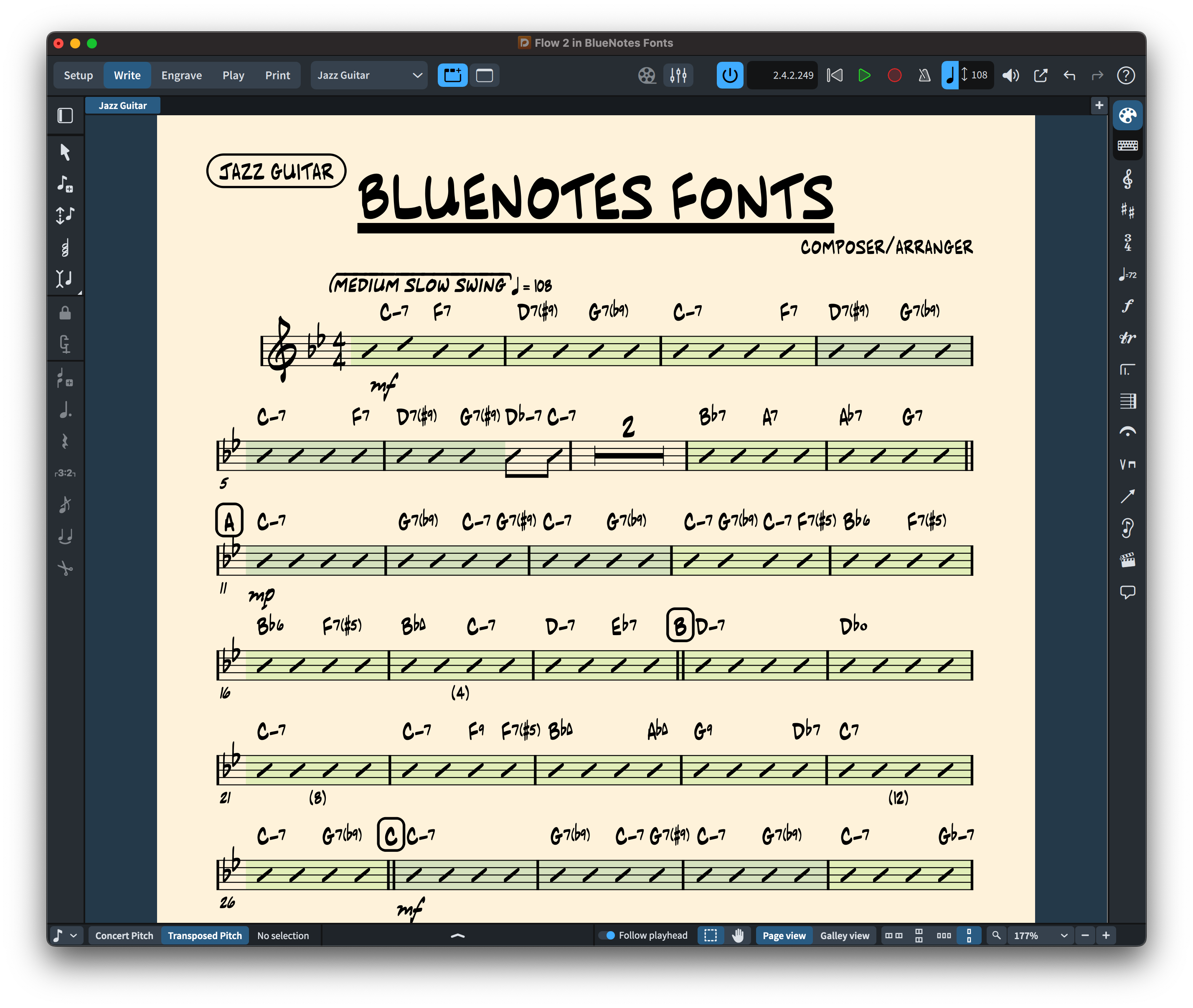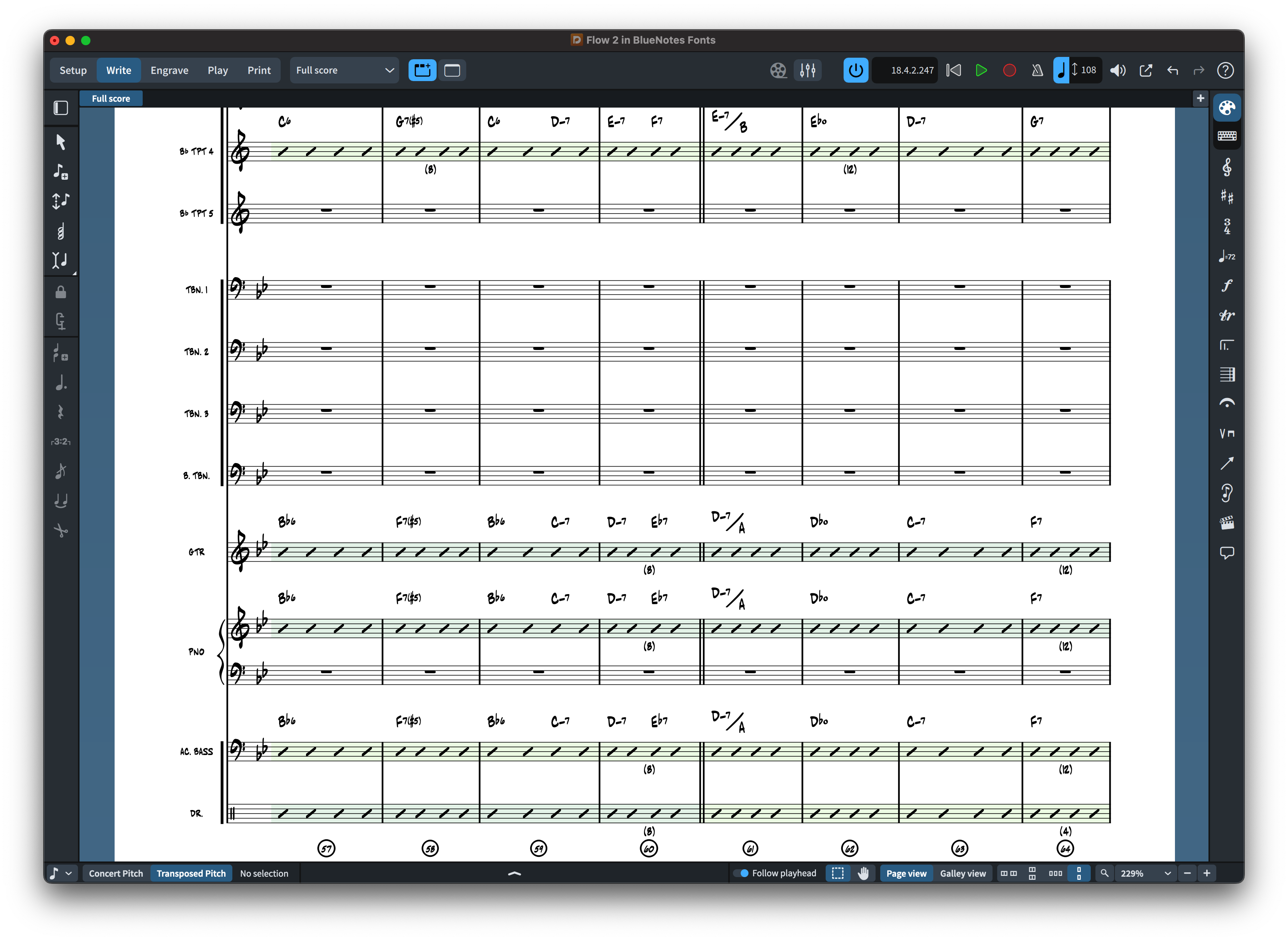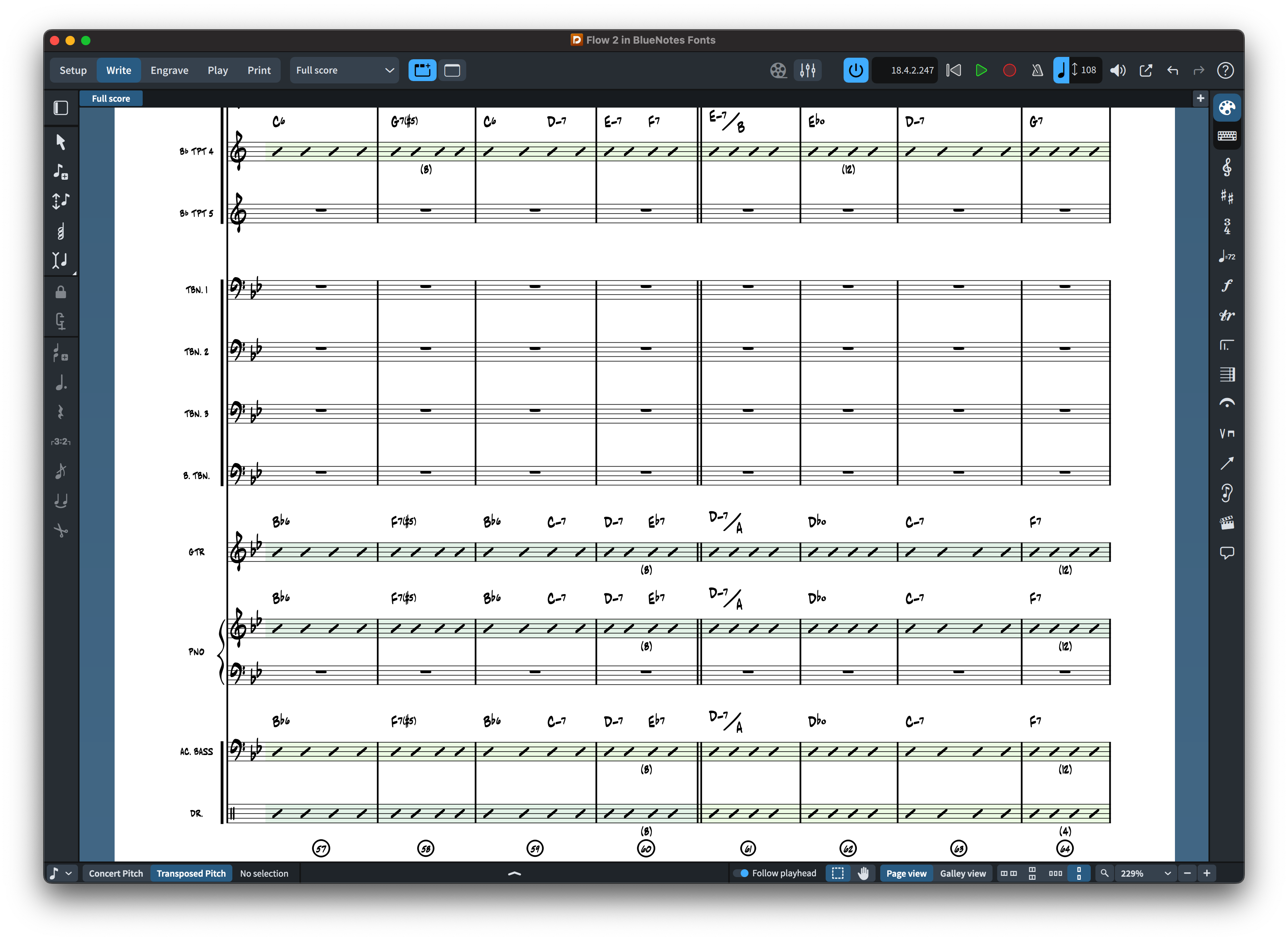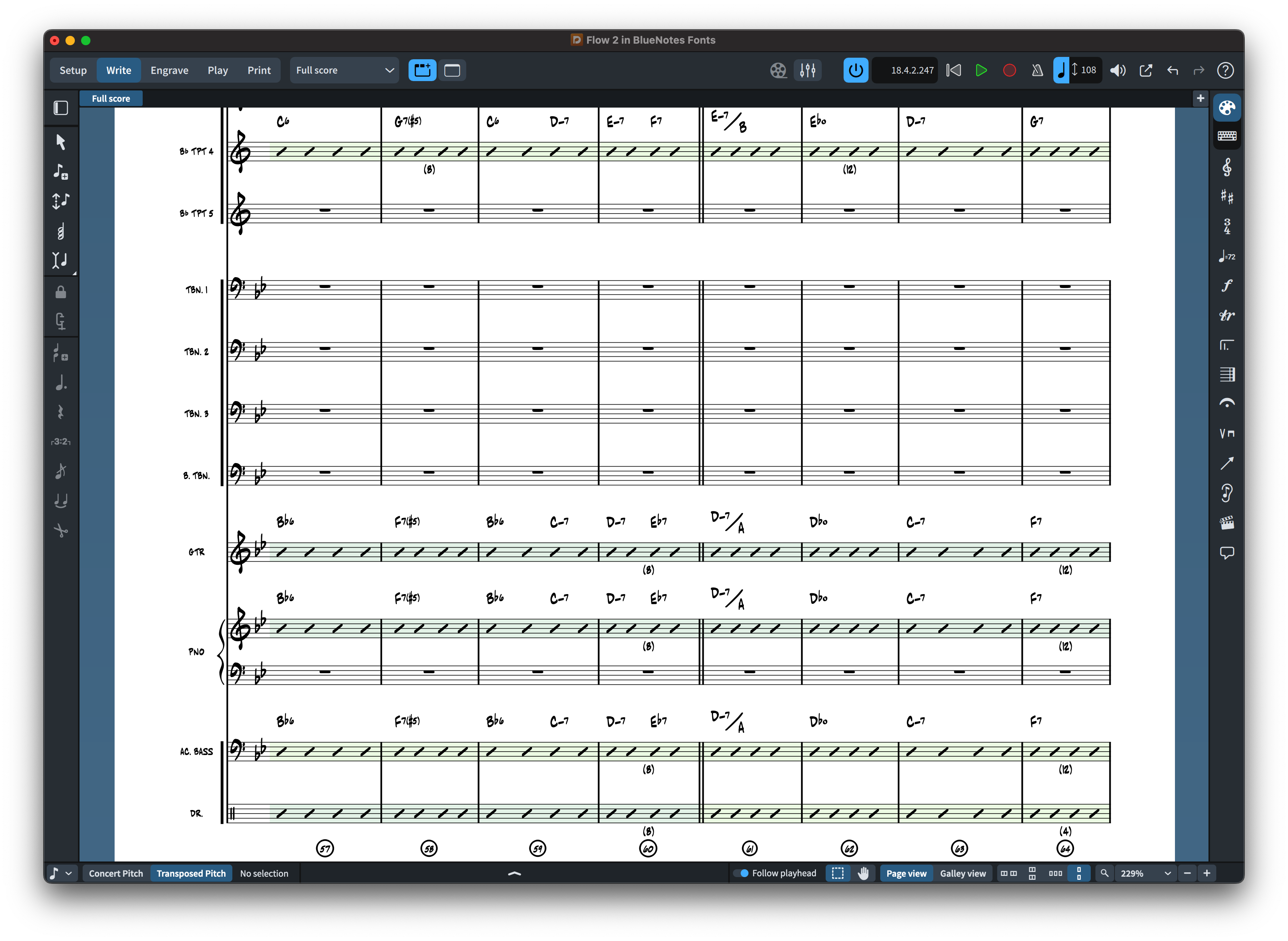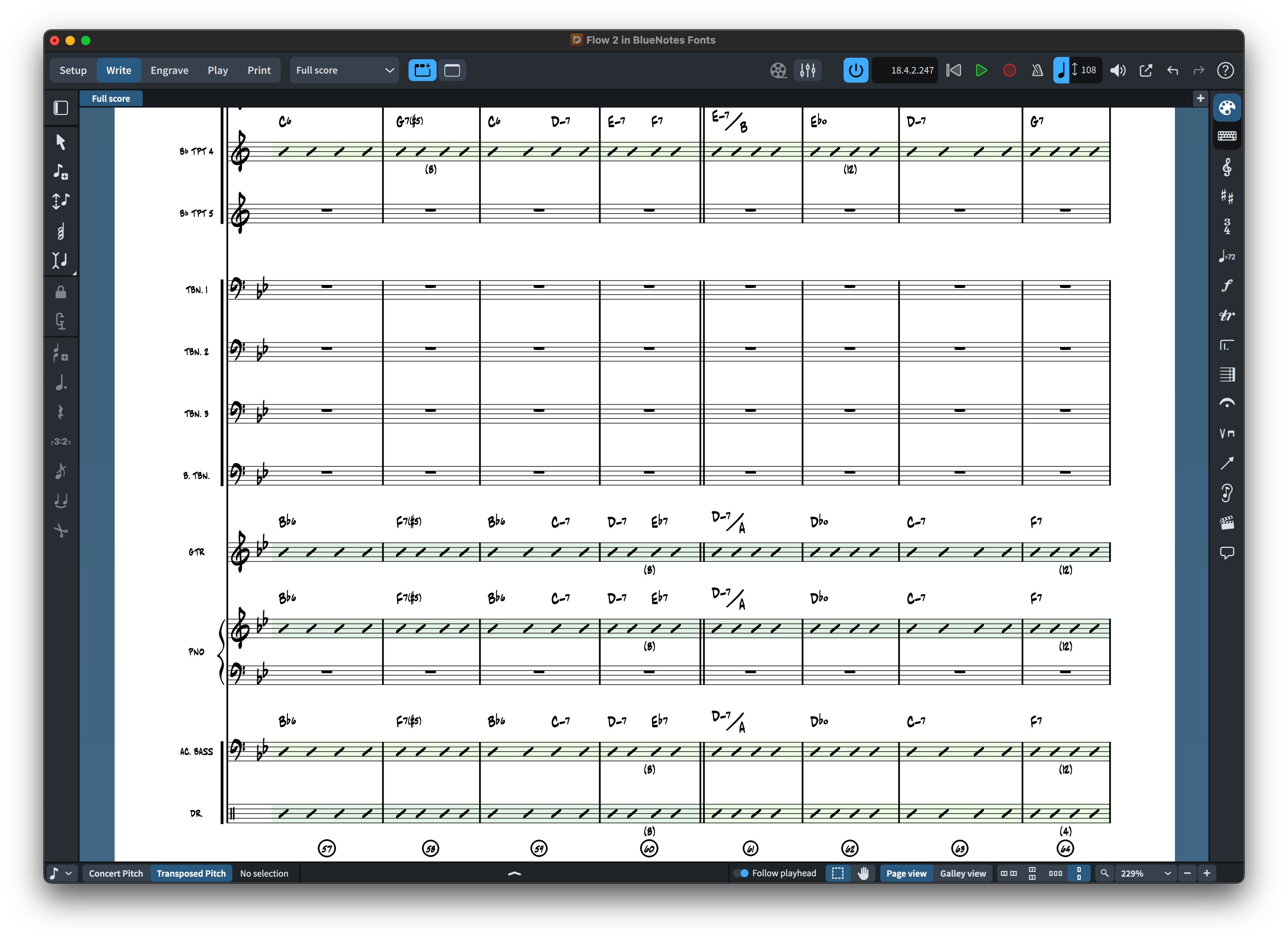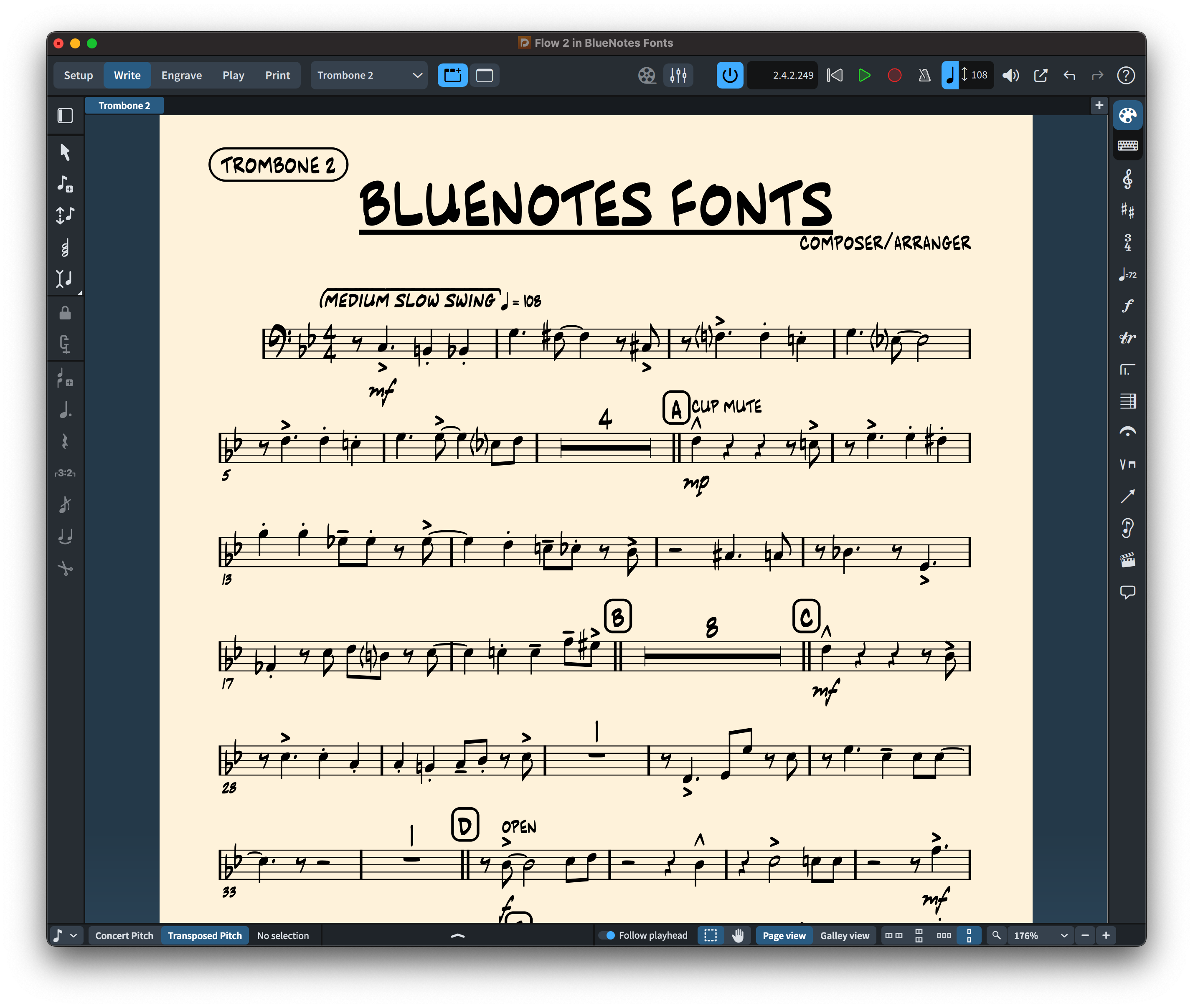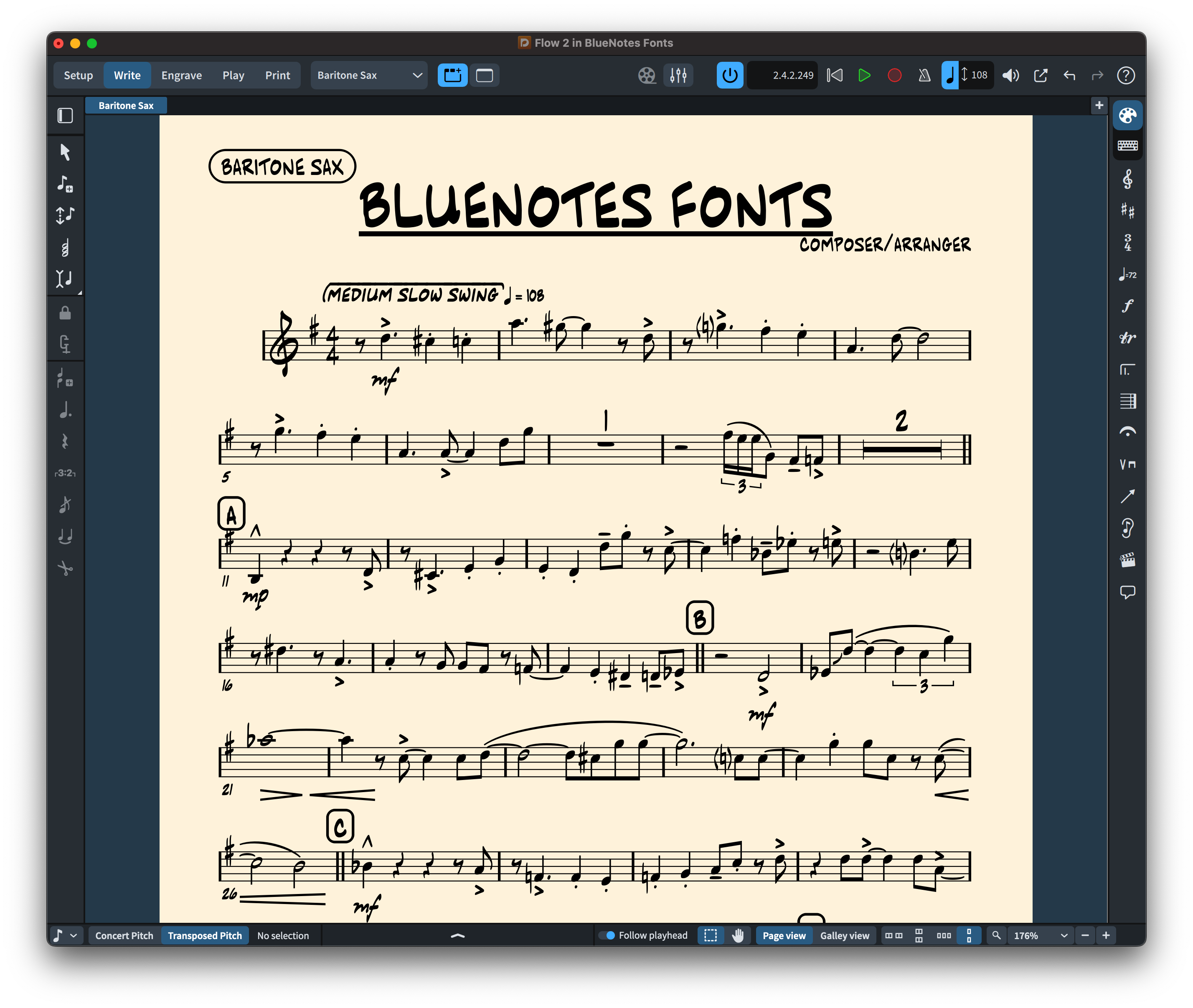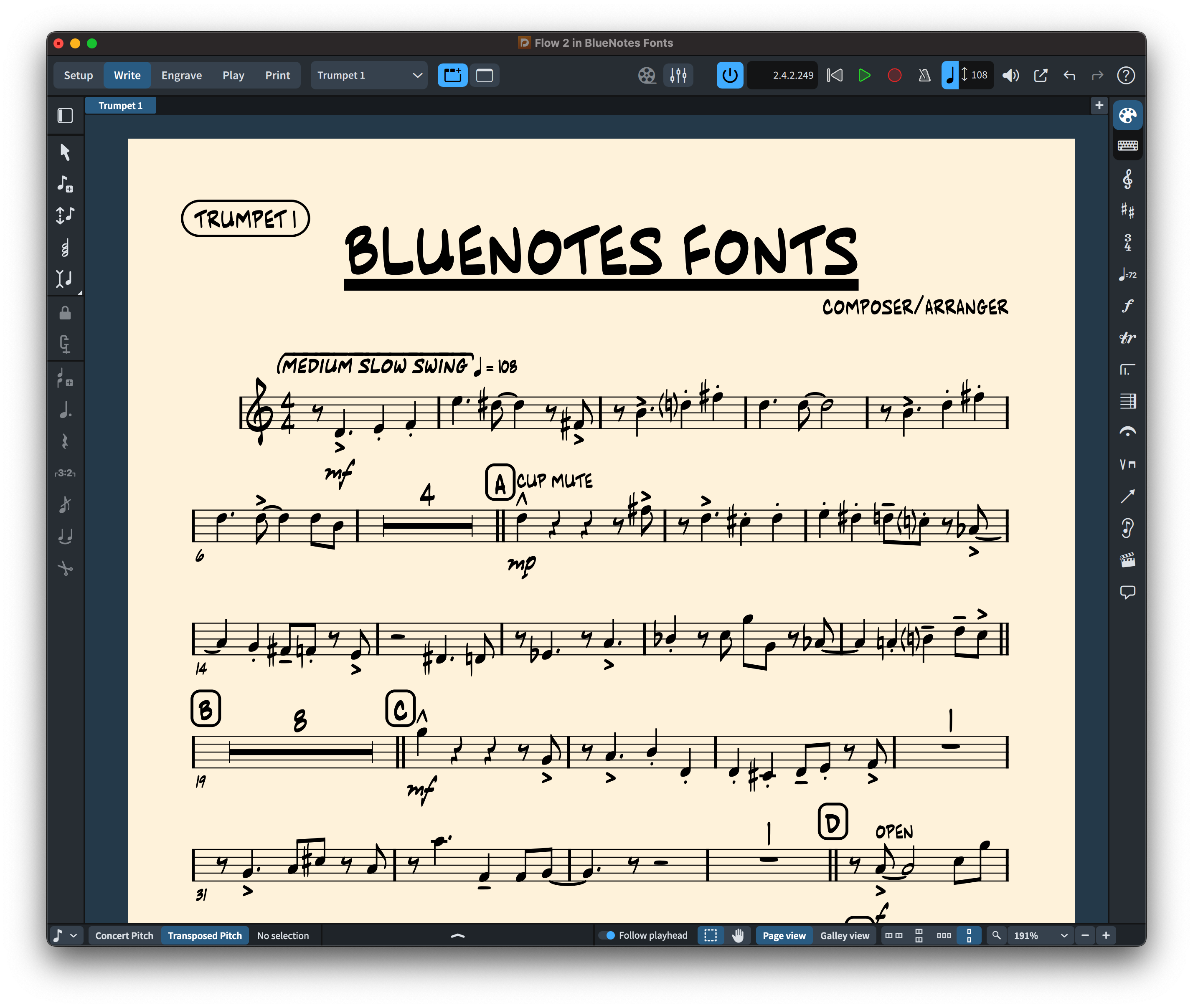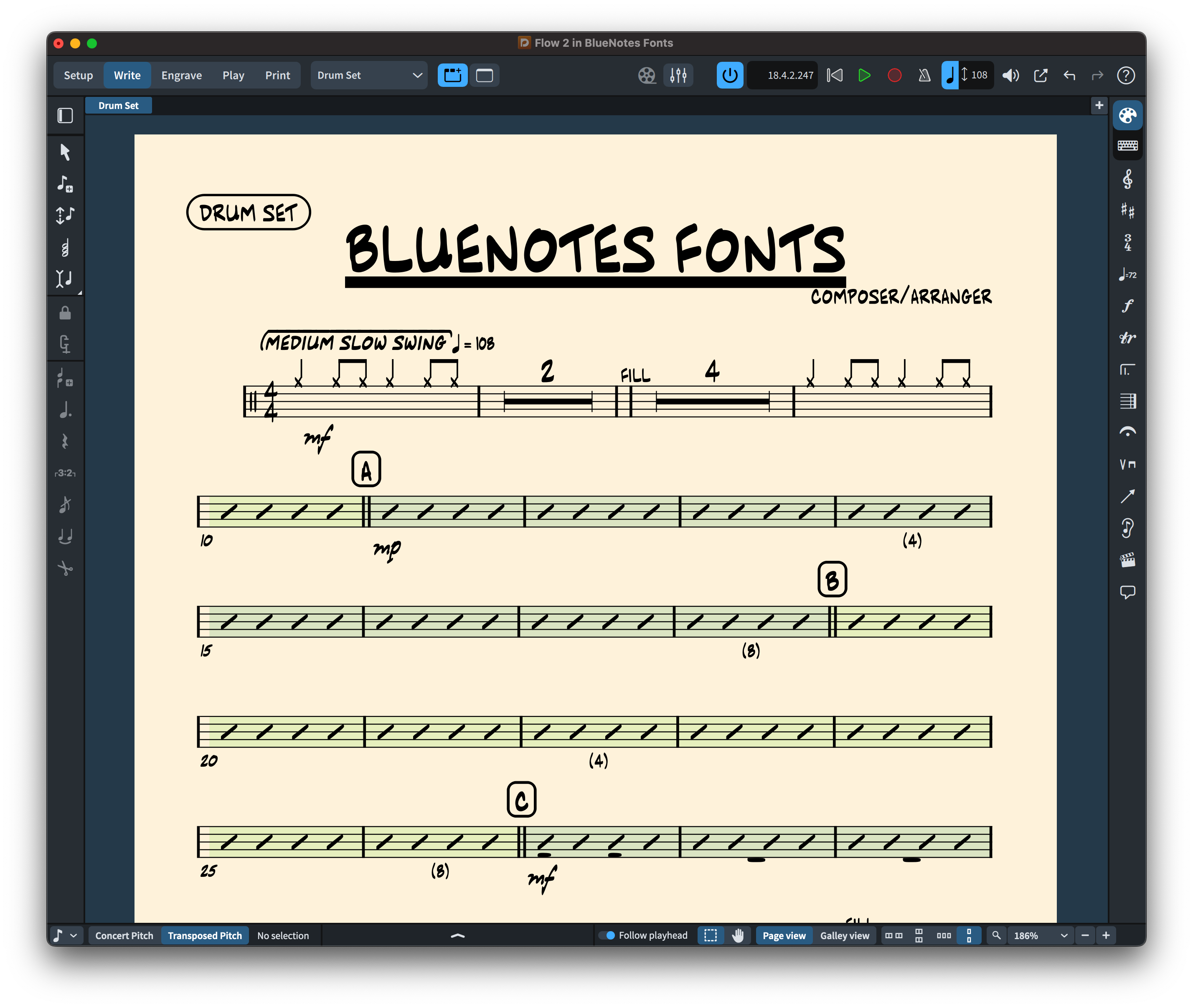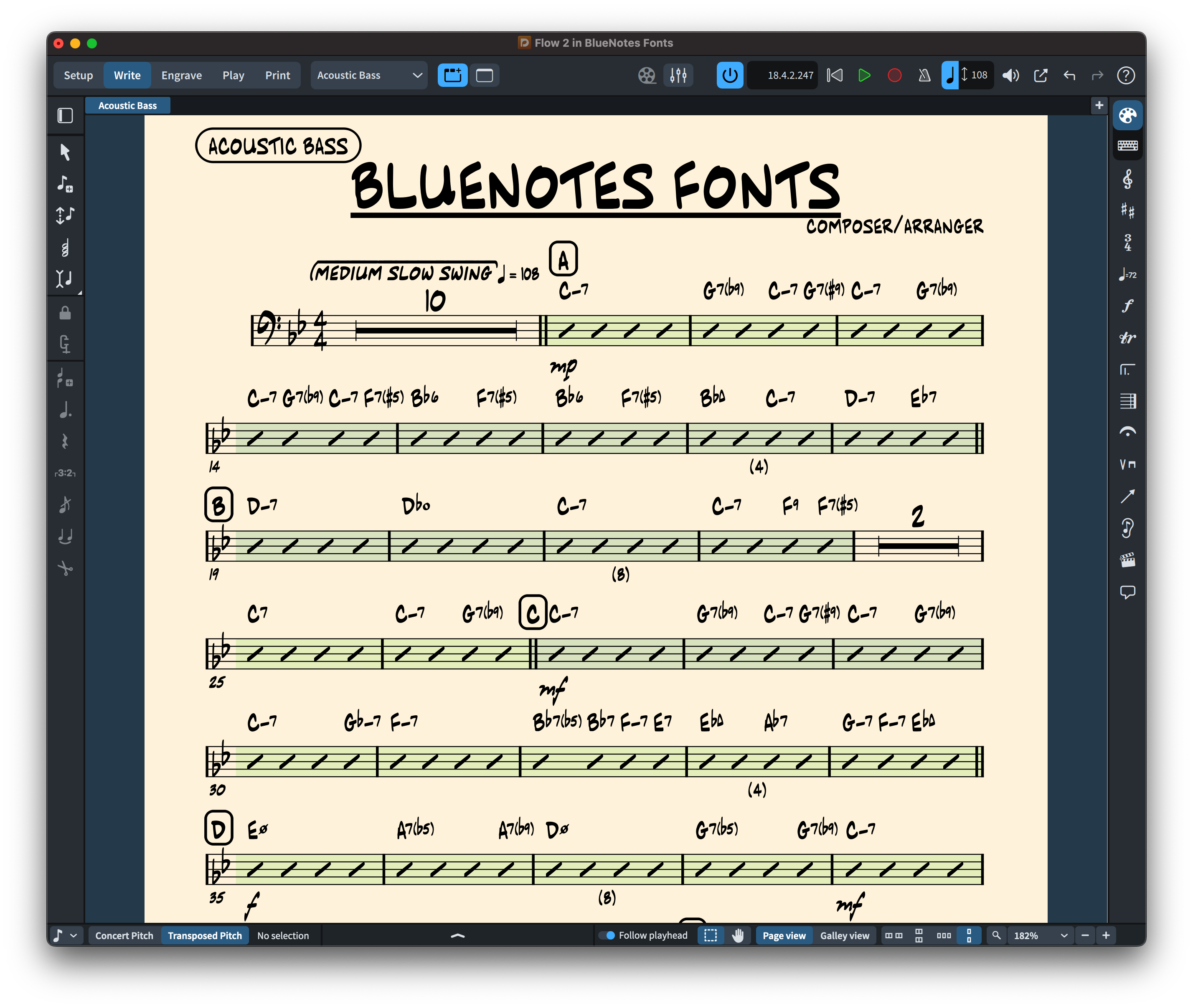
BlueNotes (SMuFL) Fonts
BlueNotes (SMuFL) handwritten jazz music font score preview
BlueNotes handwritten jazz notation sample
8 professional handwritten jazz fonts for Dorico, Finale v27+ and MuseScore 4.6+.
Handwritten SMuFL Jazz Fonts for Dorico, Finale & MuseScore
BlueNotes is a professional family of handwritten SMuFL music and text fonts for Dorico, Finale v27+ and MuseScore 4.6+, designed for jazz charts, Broadway-style scores and hand-copied notation. Nothing else will get you as close to the look and feel of the classic Broadway scores in the style of West Coast copyists. With its extensive library of over 1400 music symbols and RussMusic-like design, BlueNotes presents itself as a potential alternative to fonts such as Bravura, Petaluma, Finale Maestro, Finale Jazz, and Finale Broadway.